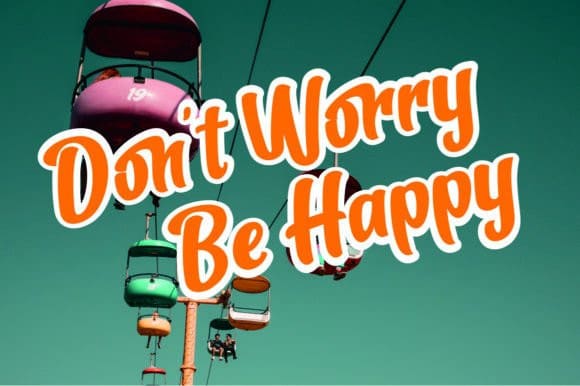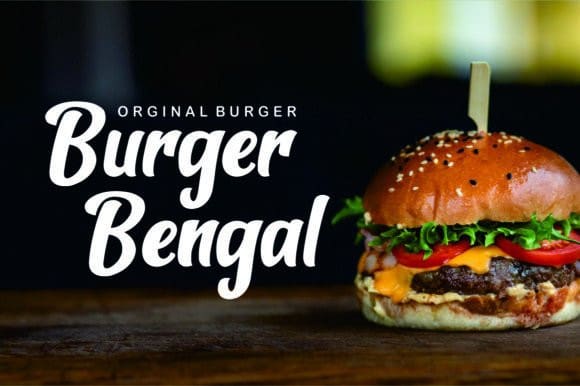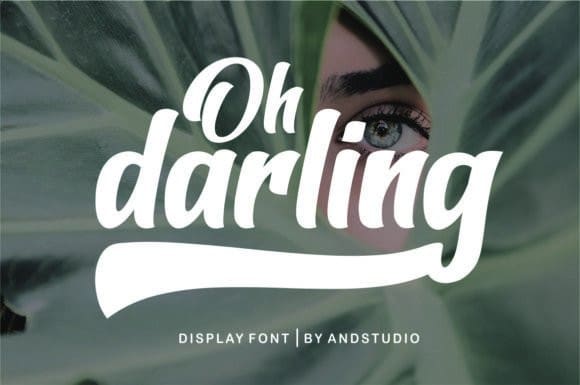
Oh Darling Font
Oh darling Font is a beautiful and bold display font perfect for logos, branding, titles, social media posts, advertisements, product packaging, product designs, labels, photography, watermarks, special events, magazines, web design, and more.